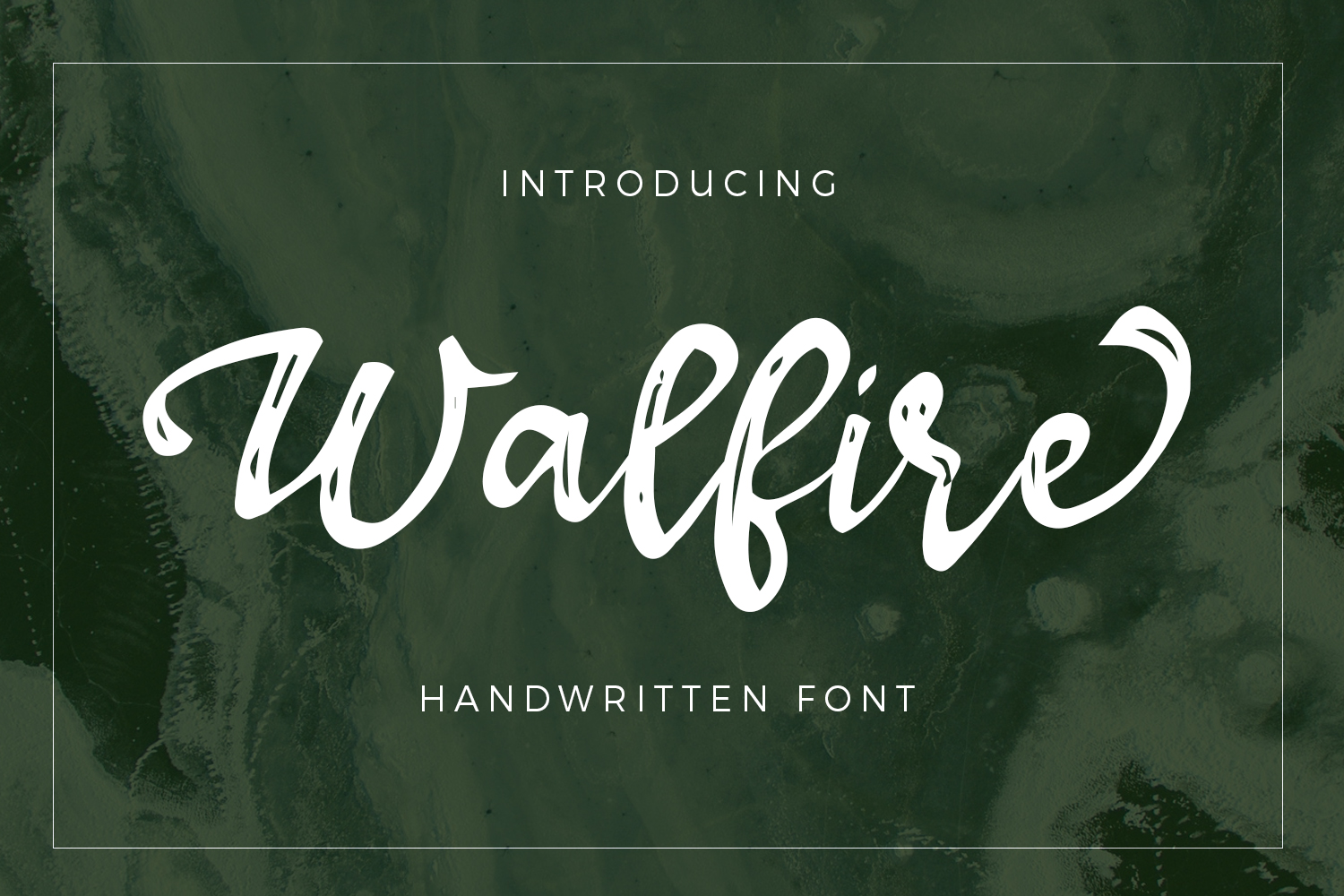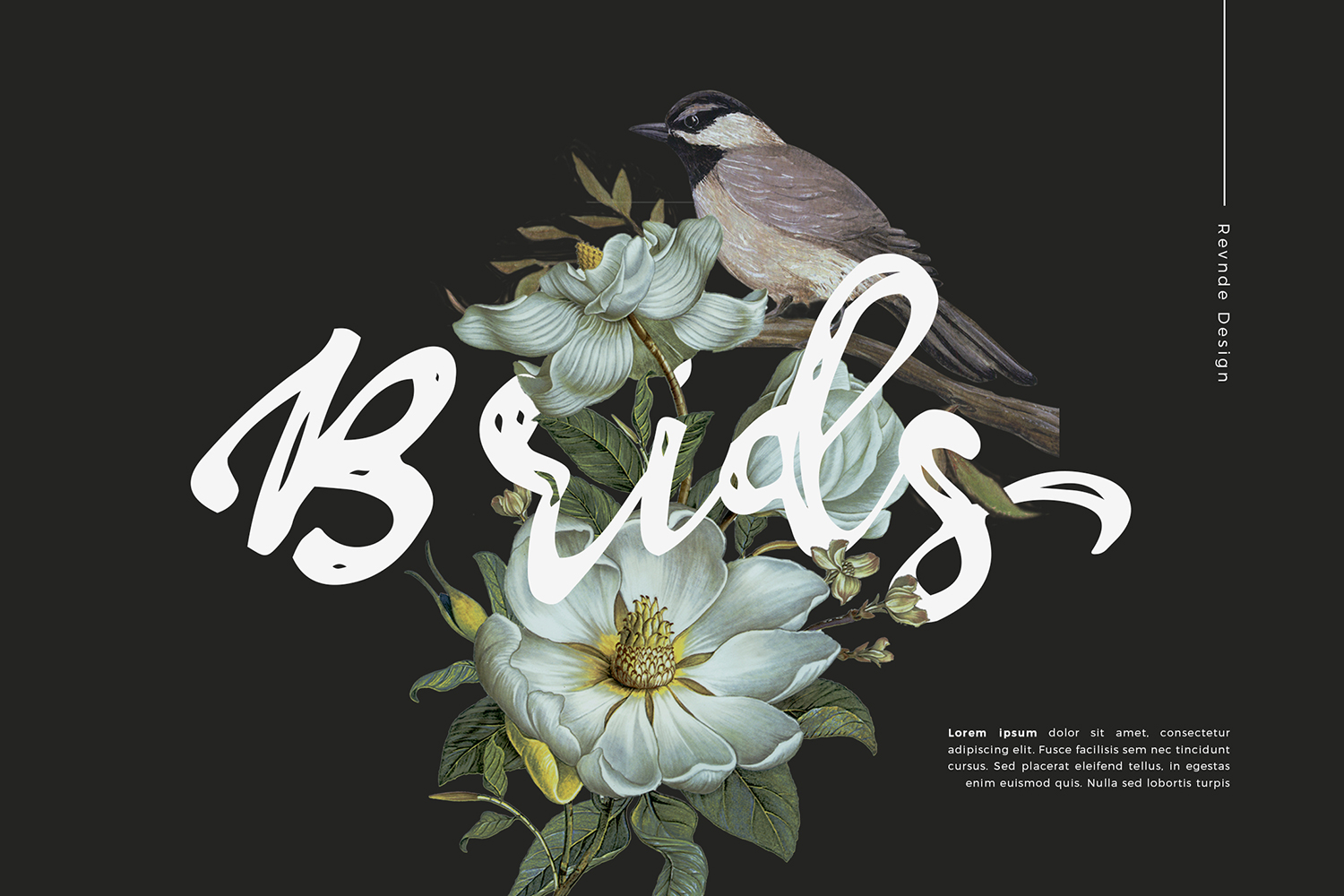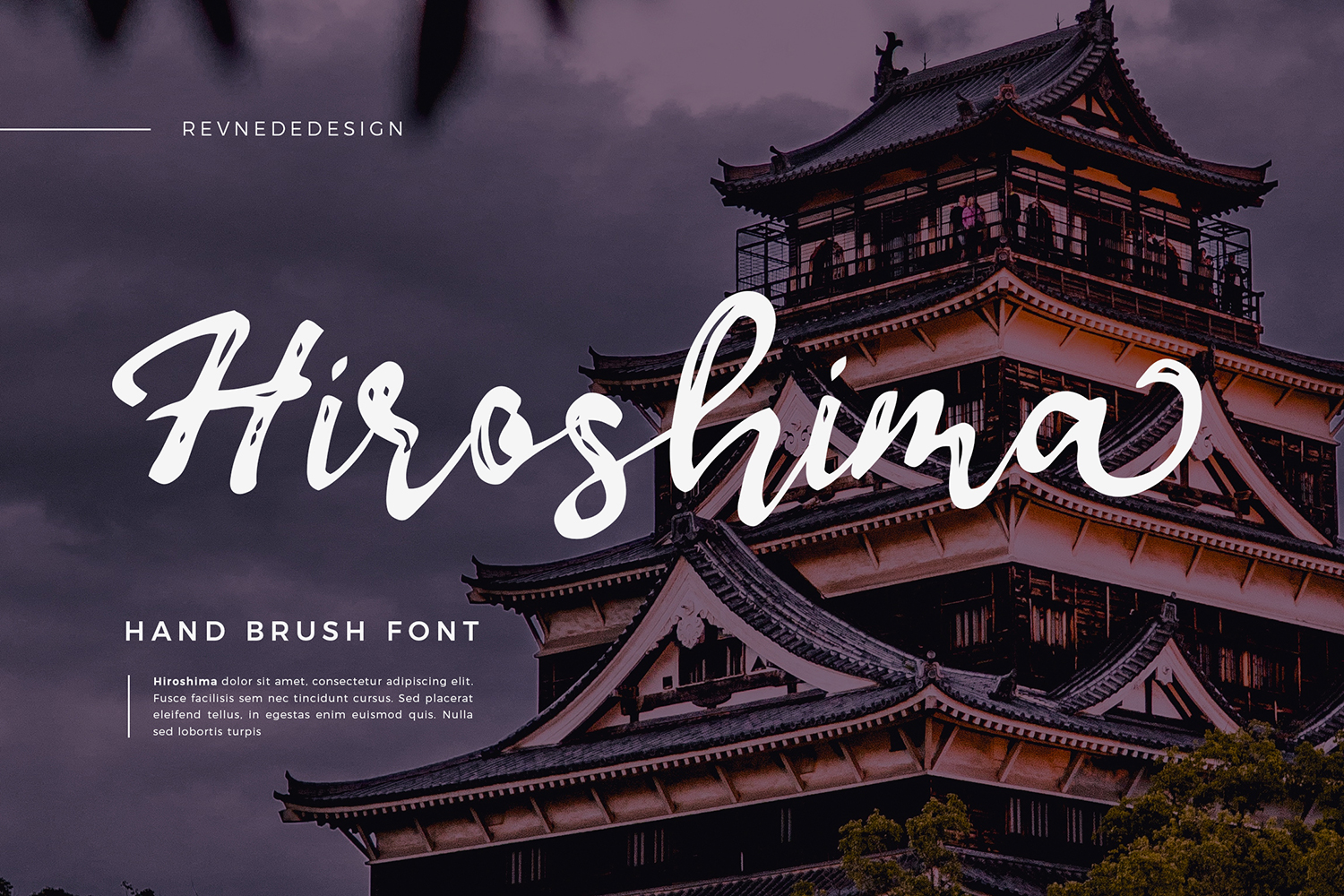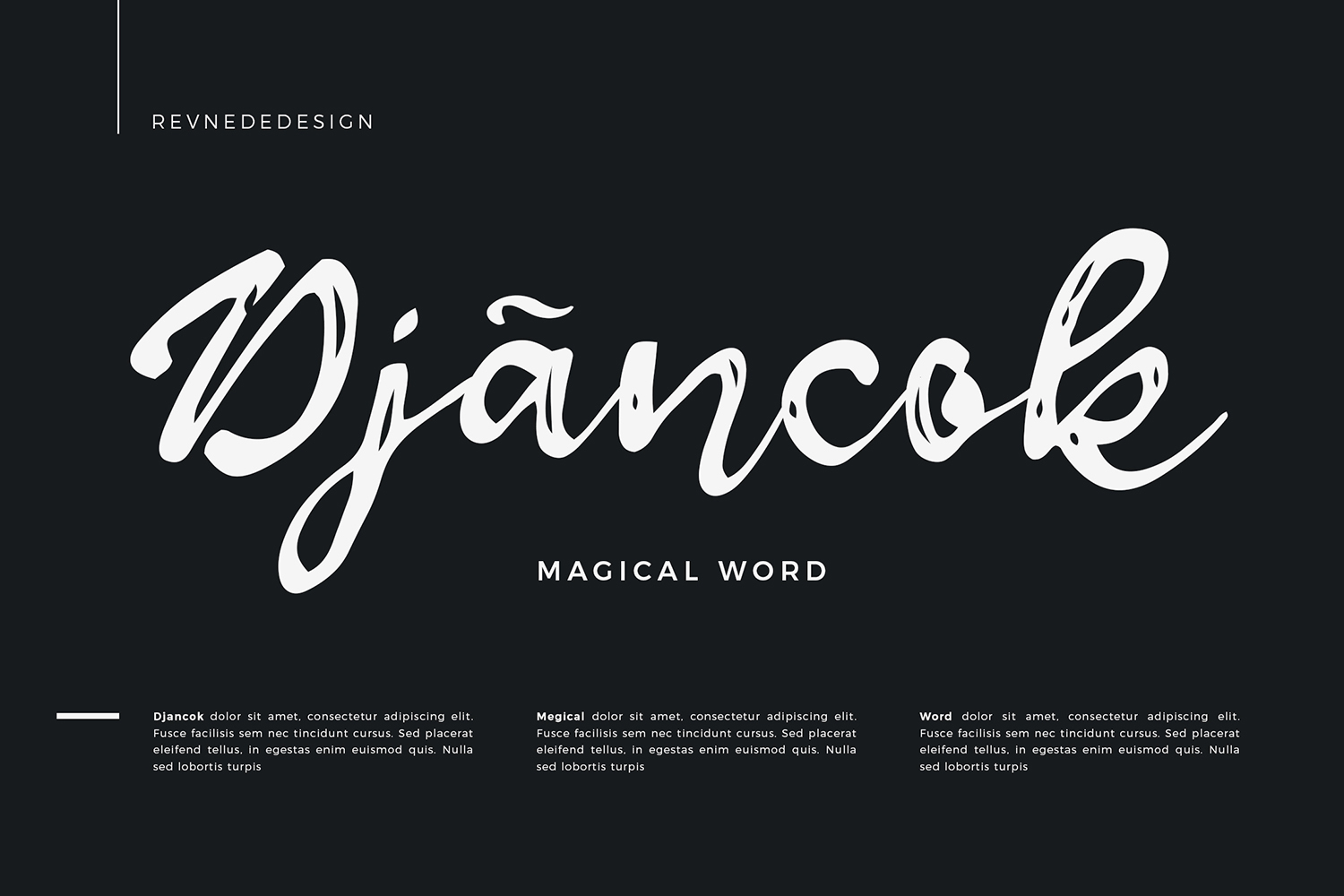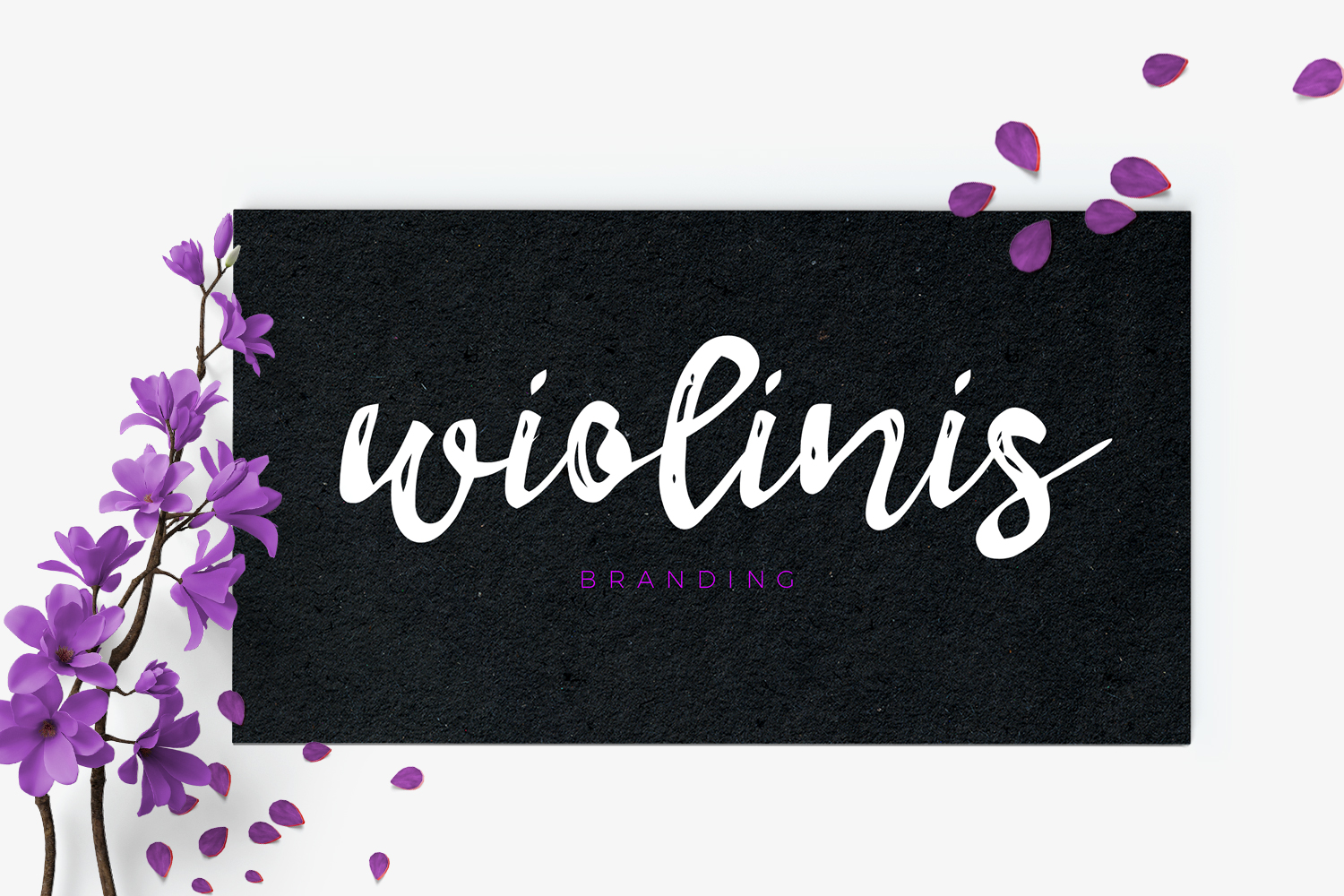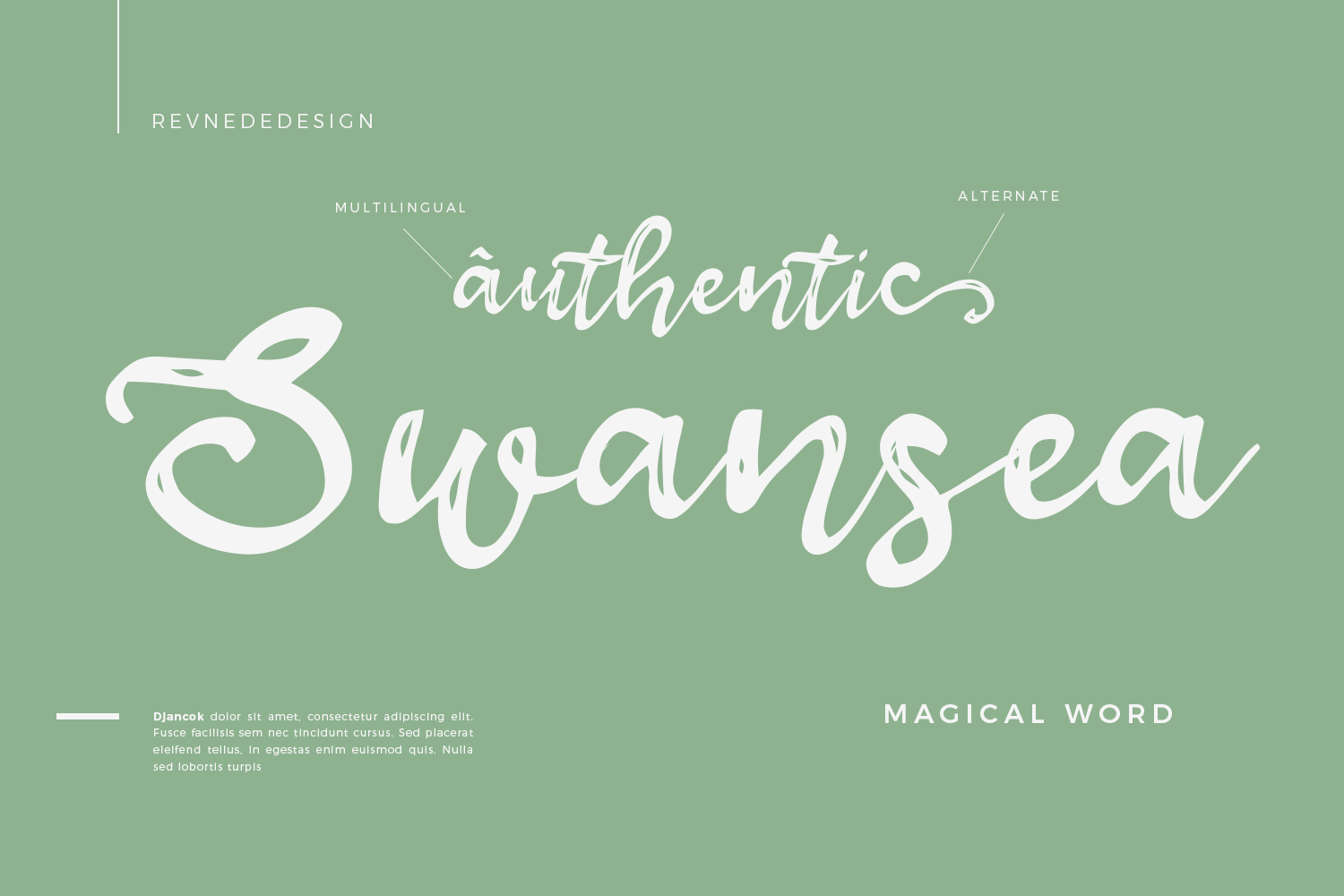
Walfire Font
About Walfire Font
Walfire is a textured hand-brushed font. It has bold letters that flow on the screen and can be used for a large variety of designs.